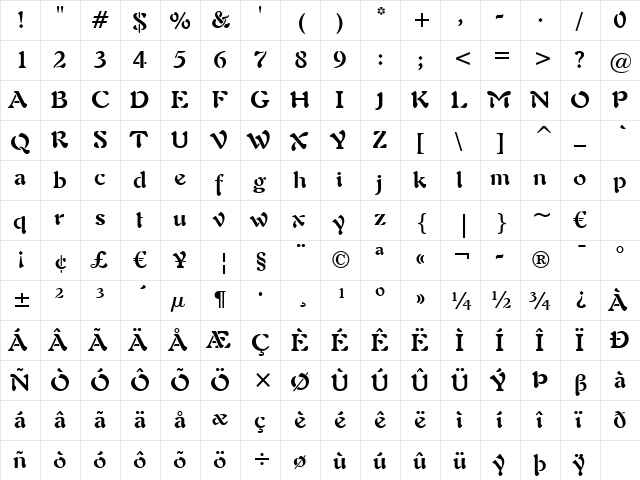
Freefrm721 BT Bold
Design Context for Freefrm721 BT Typeface
Freefrm721 BT takes a measured approach to typography — its balanced proportions and neutral character make it a reliable workhorse for both digital and print work. Its bold stroke weight gives it real presence on the page.